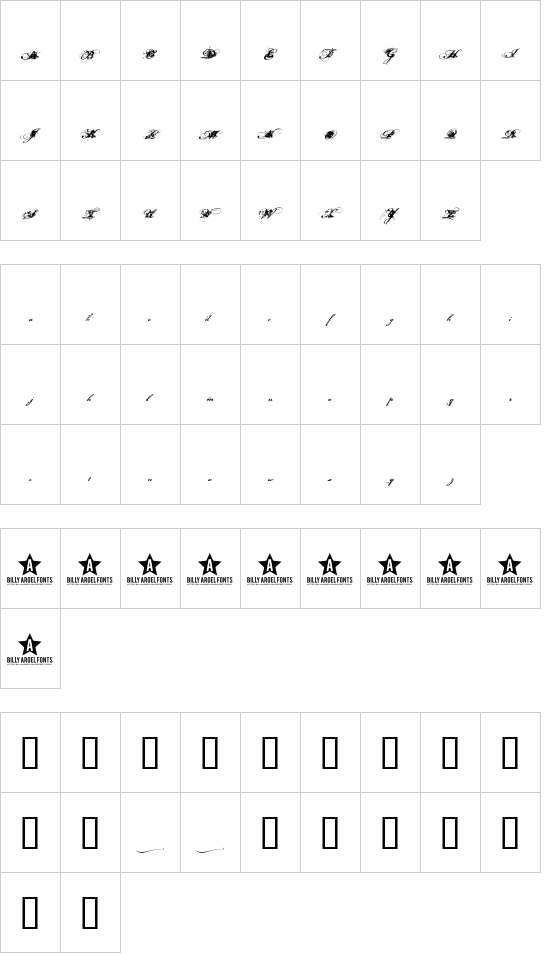
Dirty and Classic is a distorted grunge calligraphy font that pairs elegant strokes with a roughed-up texture. The graceful calligraphic forms are dragged through grit, so refined loops meet broken, sprayed edges in the same letters.
That contrast suits edgy wedding invites, alternative album art, vintage posters, and artistic headlines. Dirty and Classic is free to download as a TrueType file, and you can preview it with your own text to see how the elegant strokes and rough texture play off each other.